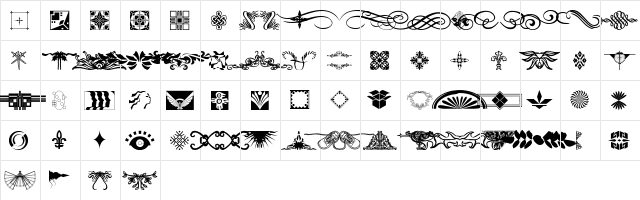
DesignerDing Regular
Design Context for DesignerDing Typeface
DesignerDing is a composed and adaptable typeface that performs quietly and consistently across a wide range of design contexts.